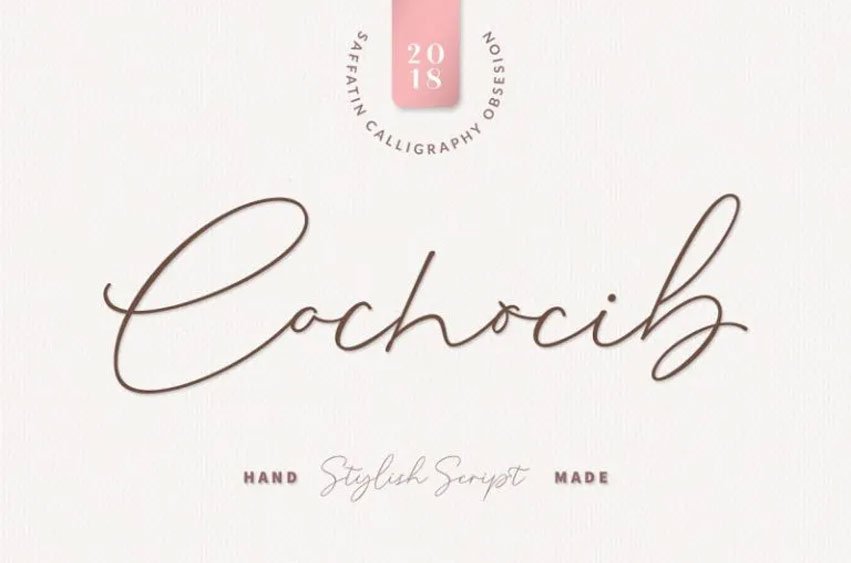
Cochocib Script Font created by Saffatin Co and can be sold on Creativemarket is now available for download today. It is characterized by a soft yet elegant style with sophisticated and natural elements that make it the best choice when creating attractive impressions or adding unique flairs to designs such as wedding invitations, greeting cards banners name cards banners lettering font pairing etc.
Cochocib is an elegant girly script font perfect for use in making invitations, cards, packaging and signatures for social media magazines as well as quotes or long texts.